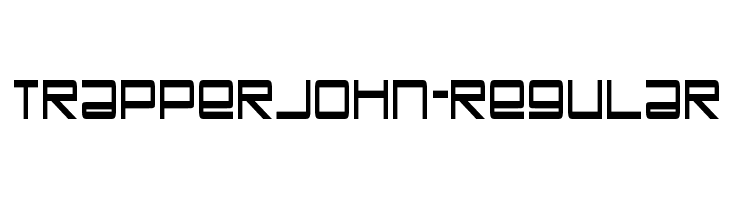
A bold, angular font with a modern, slightly italicized style.
A geometric, futuristic font with sharp angles and clean lines.
A bold, geometric font with a futuristic and angular design.
A futuristic, geometric font with angular, block-like letterforms.
A bold, angular font with a modern and dynamic style.
A bold, angular font with a heavy metal and industrial aesthetic.